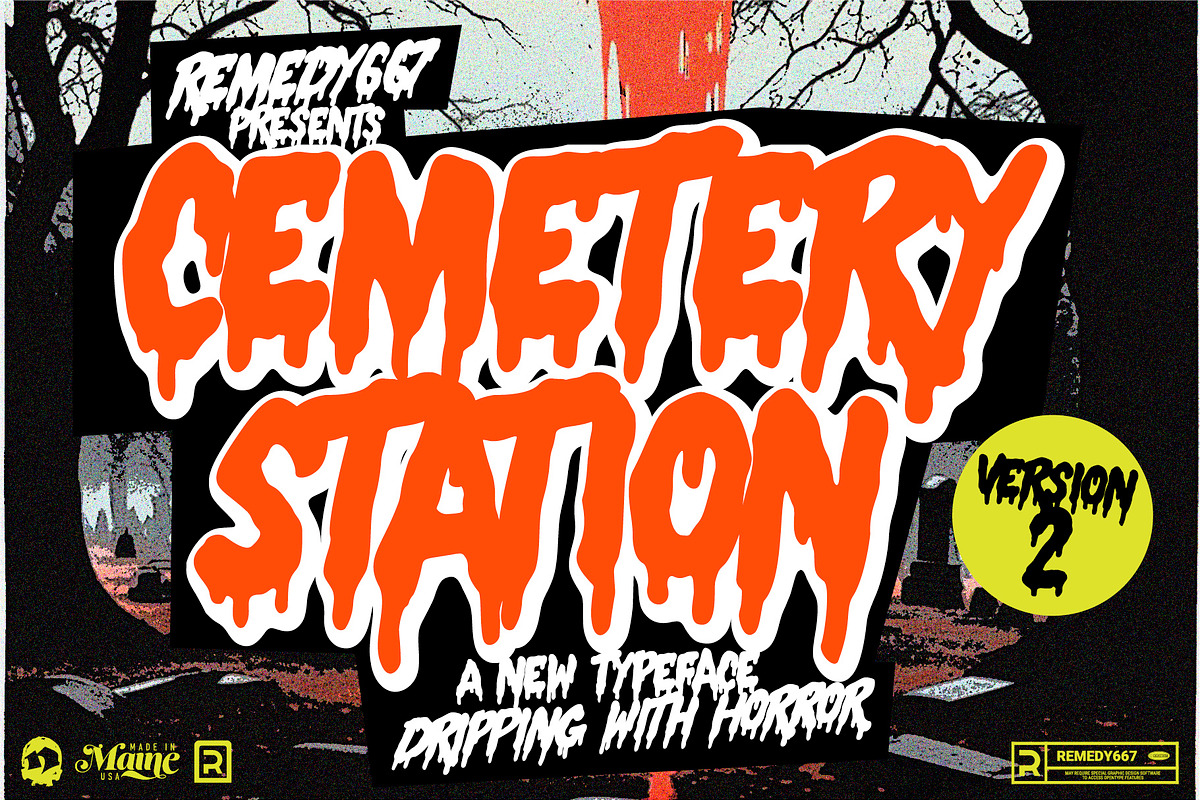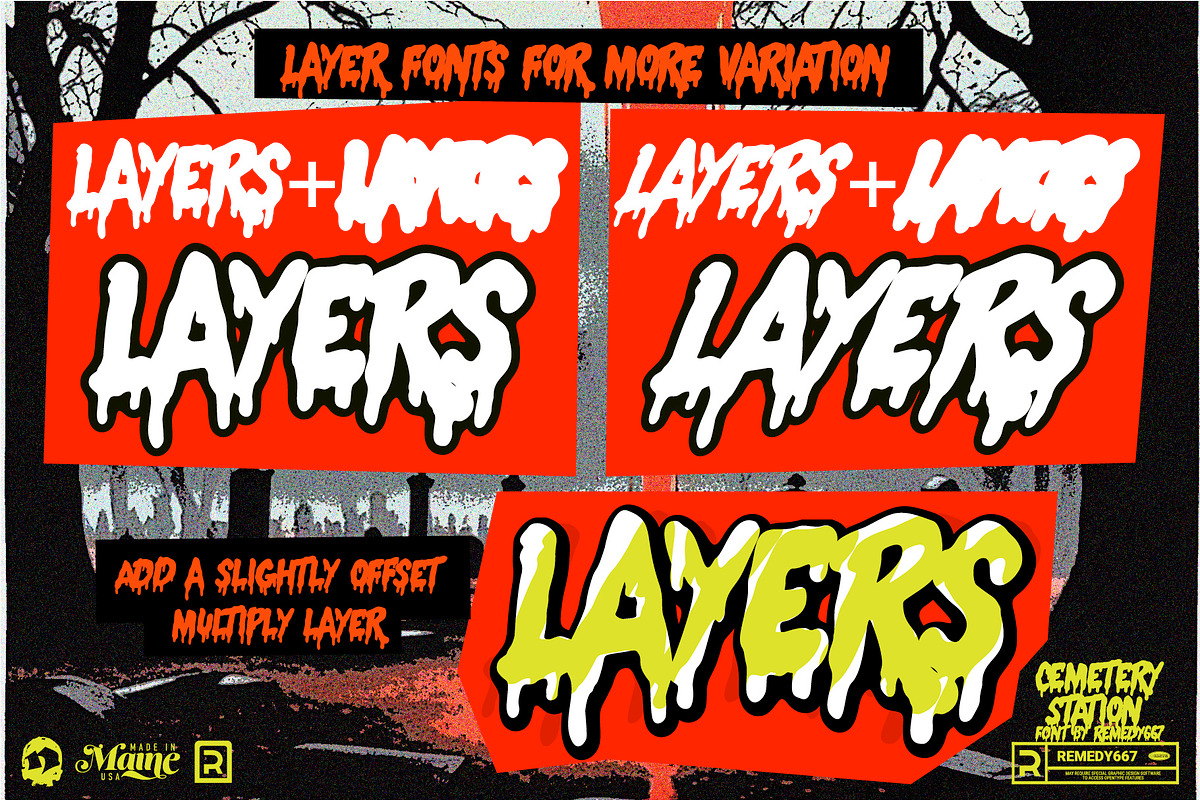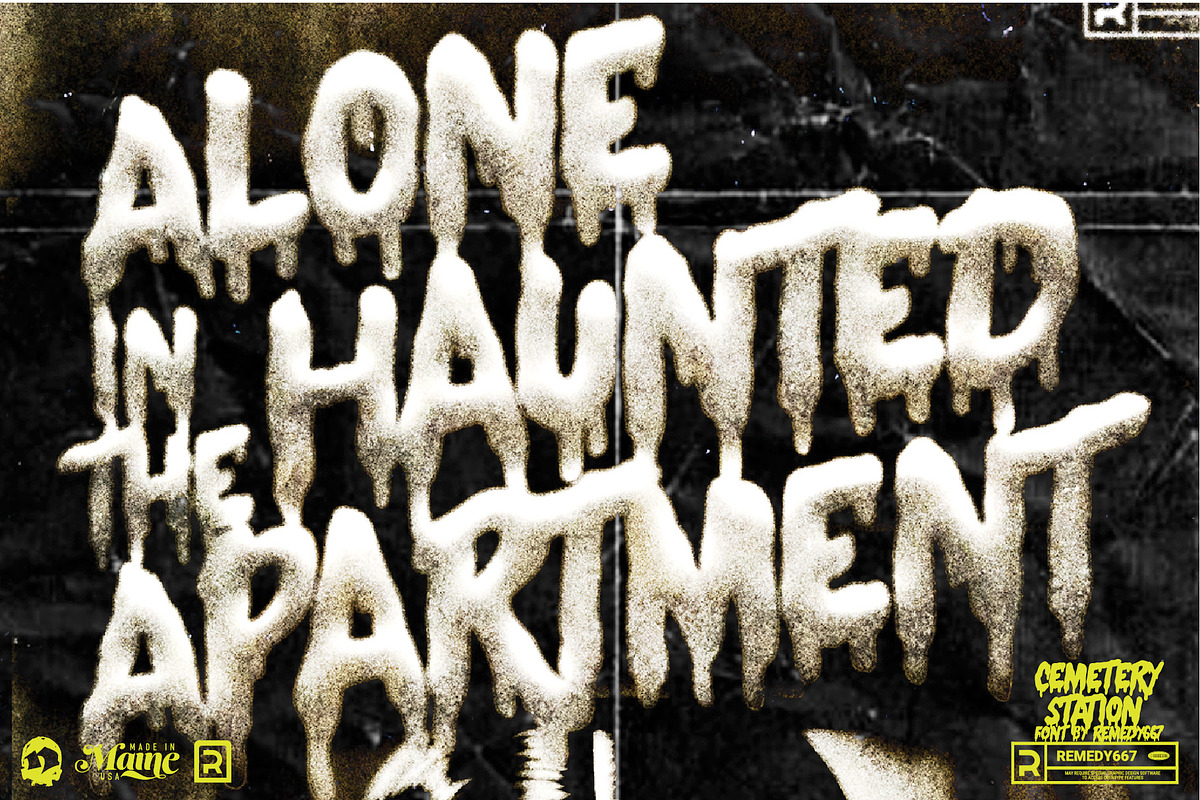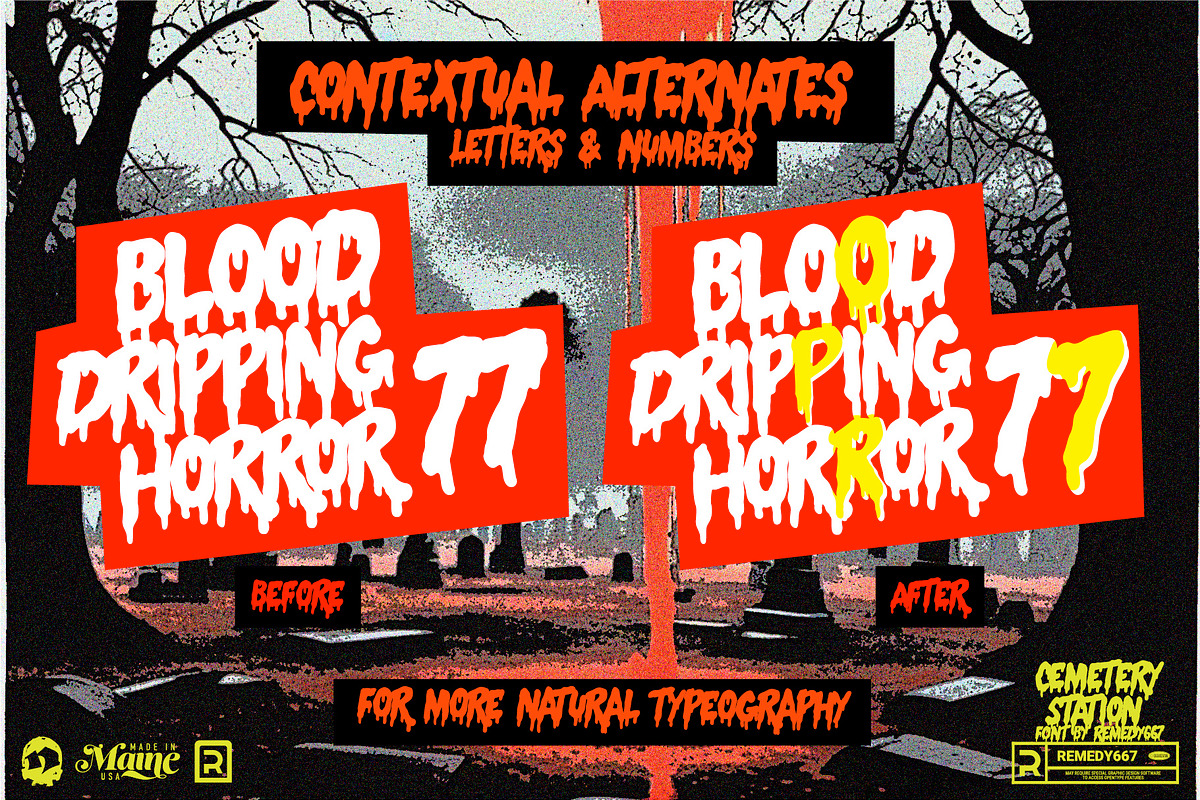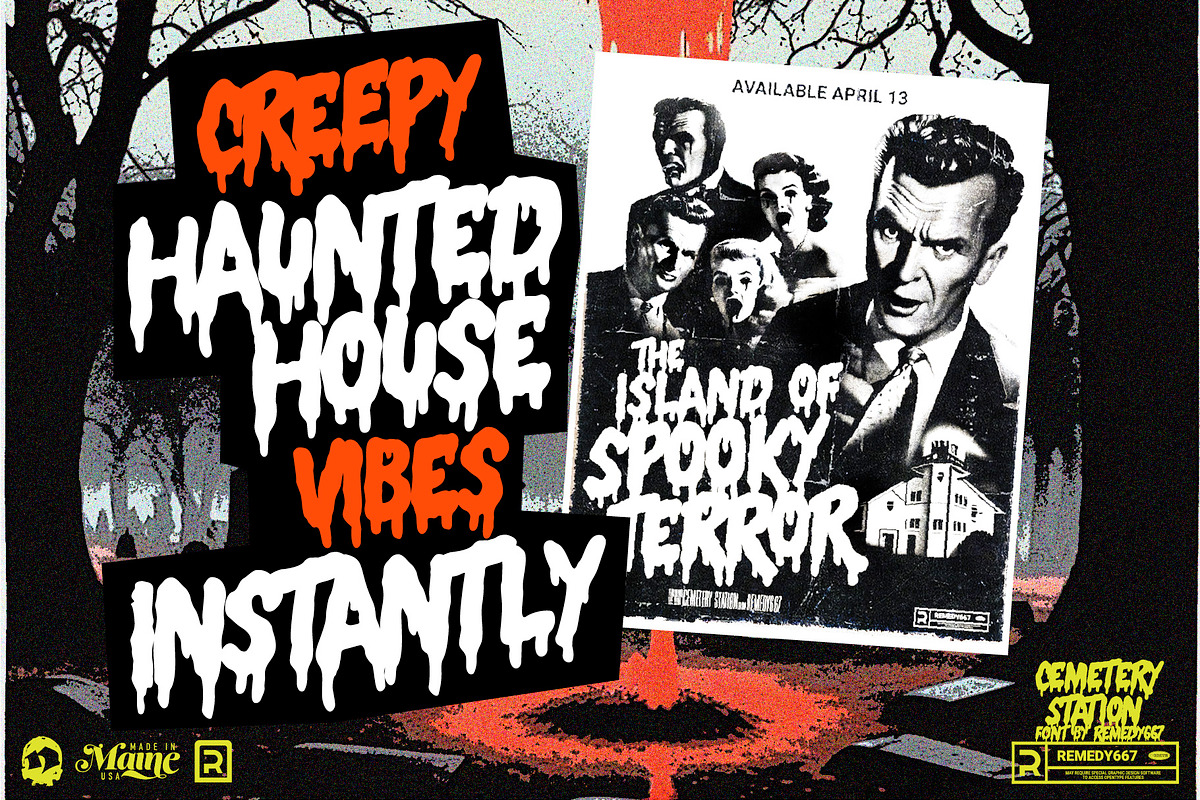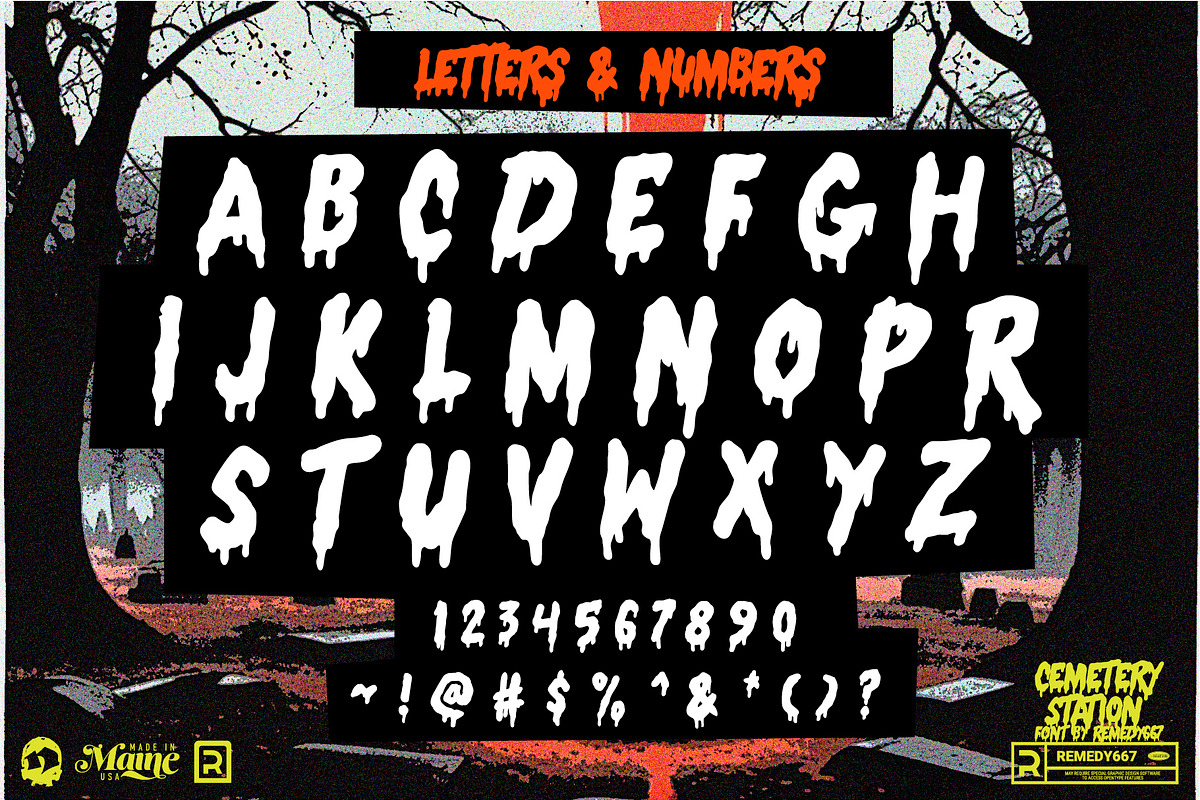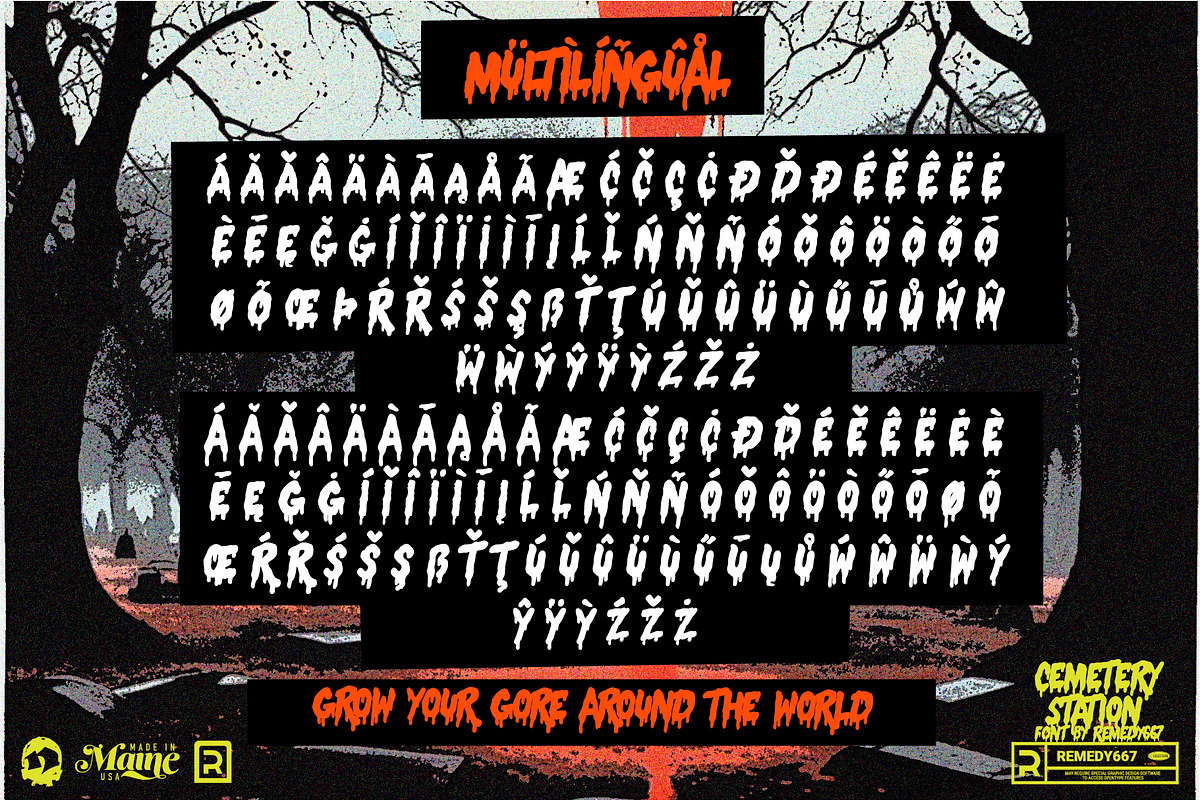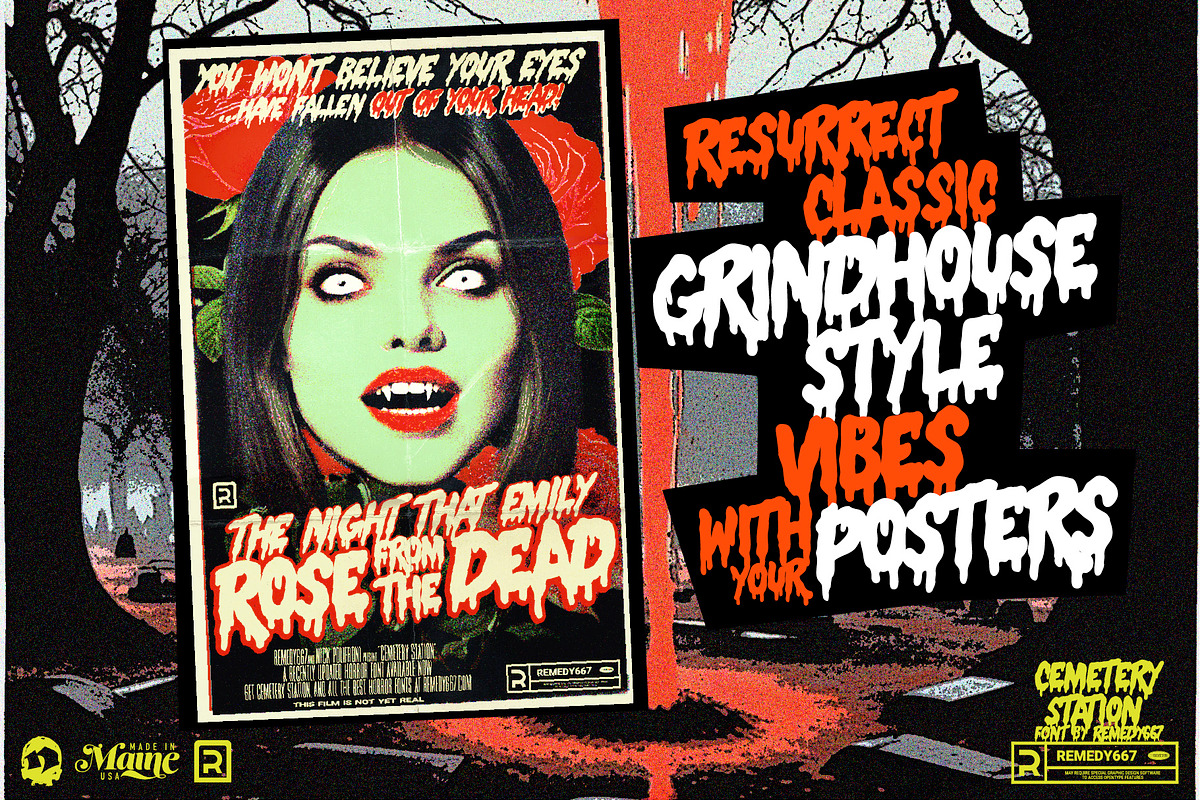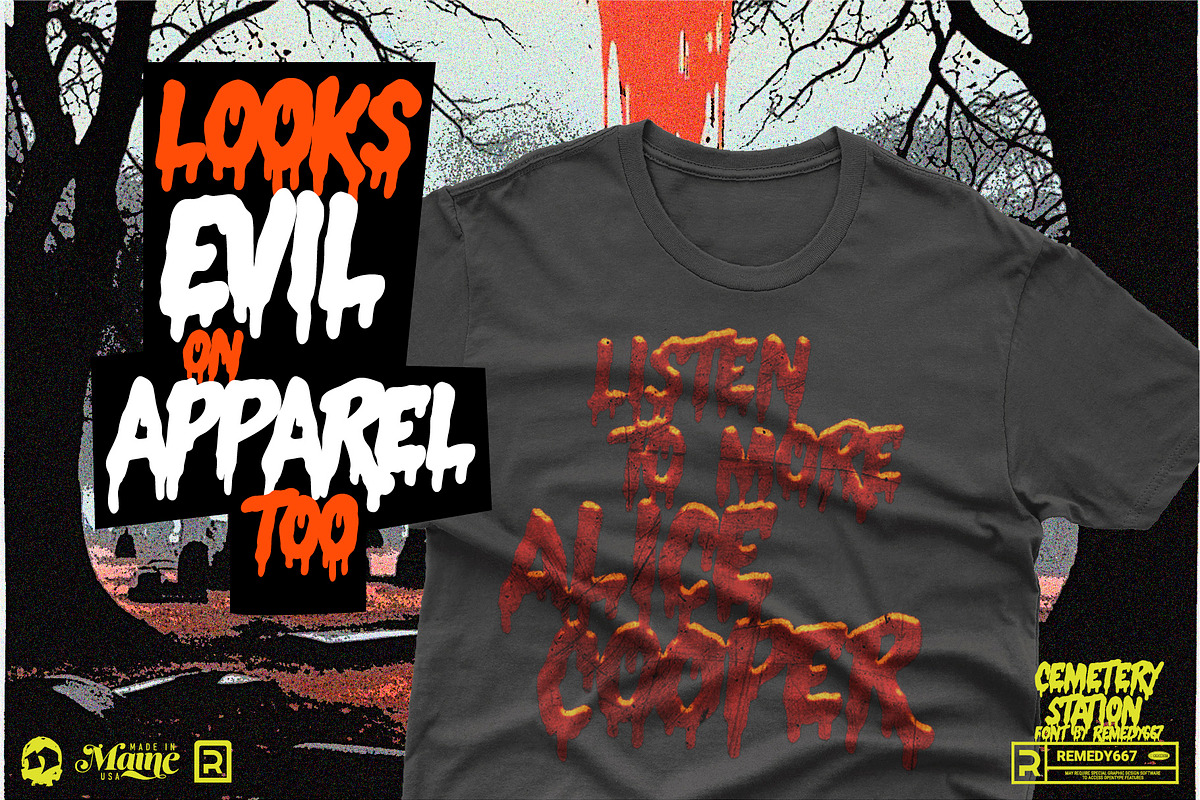
Cemetery Station
Get Spooky! …with the creative new horror font collection, Cemetery Station! This scary font from Remedy667 is dripping with style and perfect for any horror project. Its unique blend of dripping style and contextual alternates for numbers and letters, this font is perfect for all things eerie.
Cemetery Station makes crafting your own creepy creations a breeze. Give your Halloween Party invites the perfect spooky vibes. Horror themed posters look professional with contextual alternates. Take your designs to the next level – try Cemetery Station today!
Version 2 update includes 4 fonts:
- Oblique
- Gauze – Bleed versions of both that layer for offset outlines
- Add an extra layer of horror to your design with contextual alternates
- Transform your project into something dark and remarkable!
- Layer fonts with Gauze for more variety